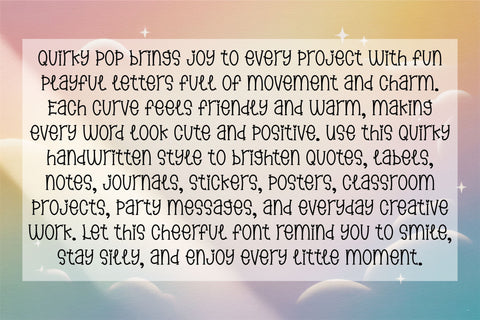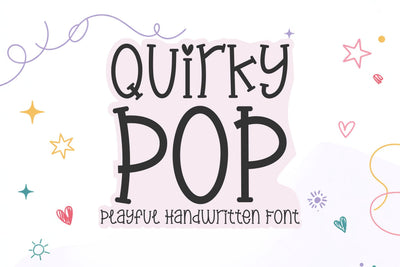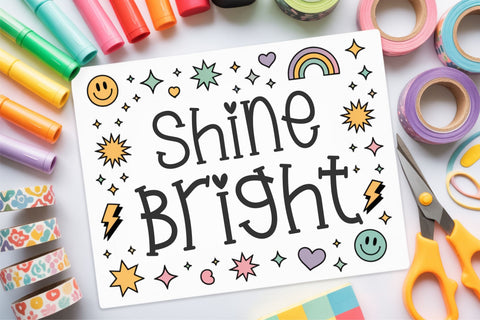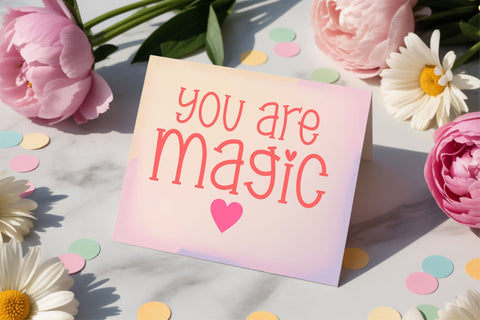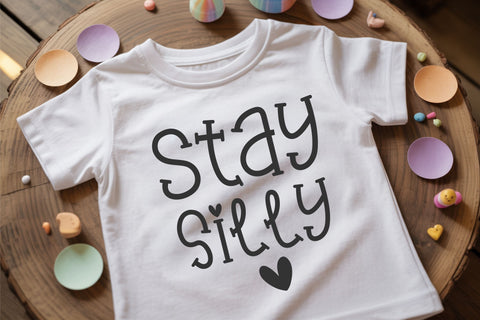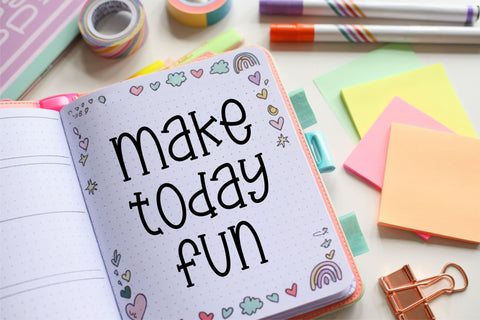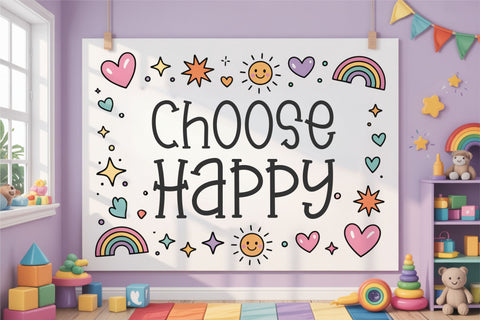
Quirky Pop Cute Playful Handwritten Font
Quirky Pop is a cheerful handwritten font created to fill every project with positivity and fun. Its playful curves and friendly shapes make each letter feel warm, expressive, and full of character. This cute alphabet is perfect for kids crafts, classroom materials, worksheets, journals, stickers, posters, planners, quotes, scrapbooking pages, party labels, greeting cards, and DIY creative work. It performs smoothly in Cricut, Silhouette, Canva, Procreate, Illustrator, and all major software. Ideal for teachers, creators, moms, crafters, small shops, and anyone who loves bright happy aesthetics. Quirky Pop comes in OTF and TTF formats and installs easily on both Windows and Mac, making it a versatile choice for every creative workflow.